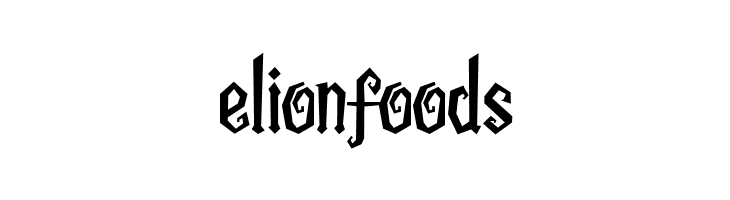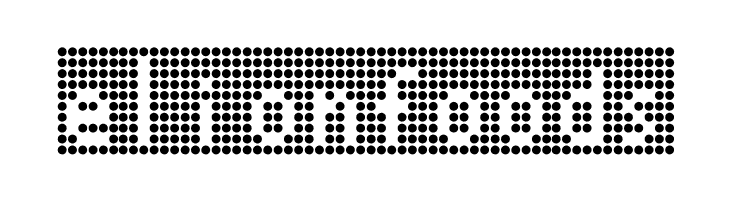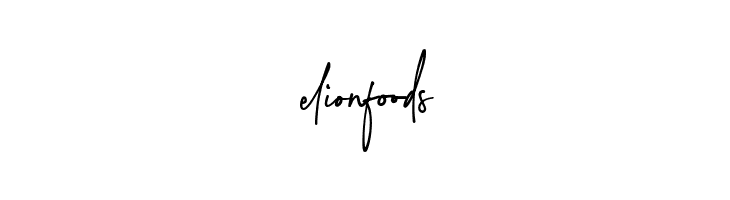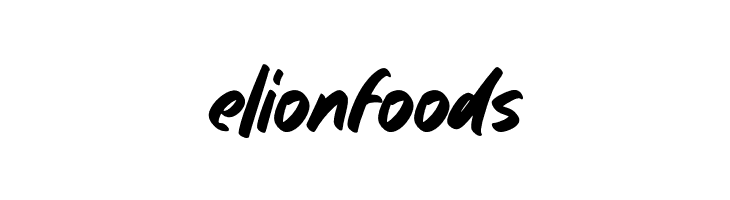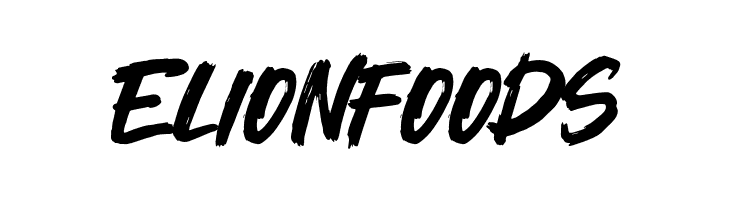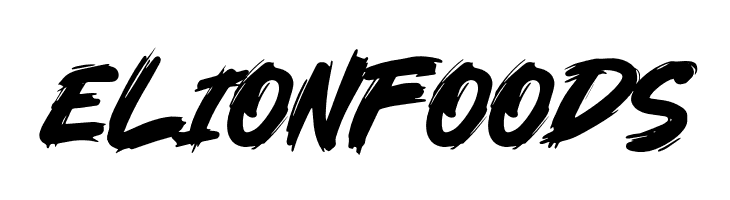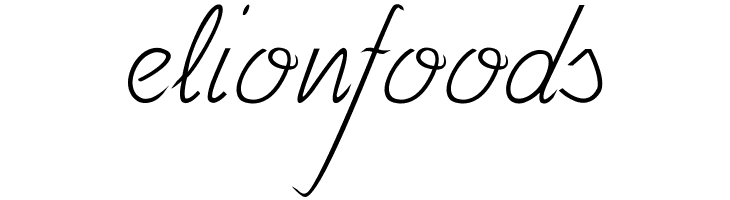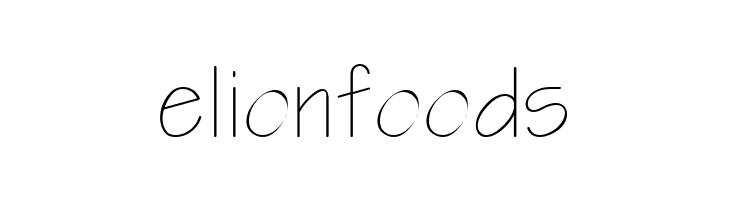
A sophisticated and elegant handwritten script font with fluid, graceful strokes.
A bold, gothic-inspired font with sharp, angular lines and a dramatic style.
An elegant monogram font with floral embellishments, perfect for personalized designs.
A modern, dot-matrix style font resembling LED displays.
A dot matrix font with a digital, modern appearance, ideal for LED displays.
A modern, elegant handwritten font with fluid strokes and a sophisticated feel.
A bold, dynamic brush script font with energetic, sweeping strokes.
An elegant, flowing script font with decorative swashes.
A bold, energetic script font with sweeping strokes and a lively style.
An elegant, flowing script font with ornate uppercase and smooth lowercase letters.
A sleek, modern font with high contrast and elegant lines.
A bold, energetic brush-style font with a dynamic and expressive appearance.
A bold, brush-style font with an energetic and expressive appearance.
A sophisticated and elegant handwritten script with fluid, graceful letterforms.
A whimsical and elegant font with flowing strokes and playful serifs.
A flowing, elegant script font with a dynamic italic style.
A futuristic, angular font with sharp, geometric shapes.
A graceful script font with connected, flowing letters and a sophisticated style.
A thin, elegant script font with flowing, continuous lines.
A dingbat font of art supply and stationery icons.
Intricate zodiac sign illustrations in a vintage, monochromatic style.
A graceful cursive font with smooth, flowing lines and elegant style.
A cursive, elegant font with a consistent slant and smooth curves.
An ornate and decorative font with intricate swirls and flourishes.